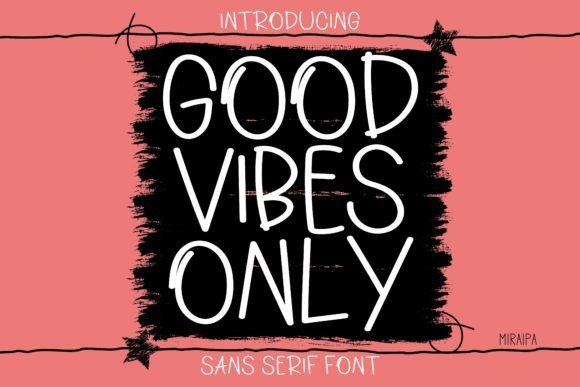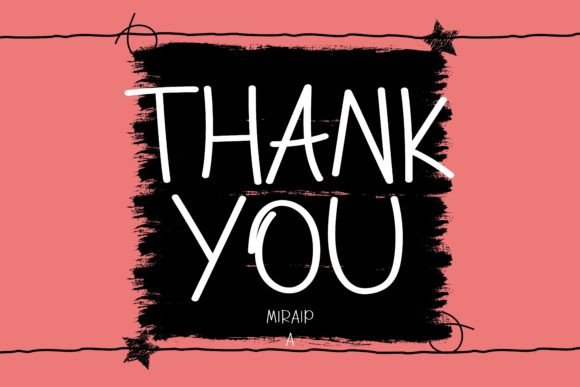
When Good Vibes Only Matter Most
Have you ever been stuck in a creative rut, struggling to find the perfect font to convey your message? We’ve all been there. But what if you could instantly shift your design into high gear with a single font? Enter the Good Vibes Only Font, a charming and friendly handwritten sans serif font that’s about to become your new go-to.
Designed to bring a smile to your viewer’s face, this font is incredibly versatile and will look great in a wide variety of contexts – from social media graphics to blog posts, and even merchandise. For designers, the Good Vibes Only Font is a valuable addition to any toolkit, providing a fresh and playful alternative to more serious fonts.
Good Vibes Only Font Key Features
- Font Family: Good Vibes Only is a sans-serif font designed to evoke a sense of positivity and happiness. It features a rounded and friendly appearance.
- Unique Characteristics: Good Vibes Only features a distinctive rounded design, with subtle curves and smooth lines that create a friendly and approachable feel.
Designer Review: Good Vibes Only Font
I recently had the chance to dive into the Good Vibes Only Font, and I must say it’s an interesting addition to the font family. ✨ The font’s playful, handwritten feel instantly grabs your attention and could be a great fit for projects that require a more casual tone. The ligatures and swashes add a touch of whimsy, making it perfect for greeting cards, social media graphics, or even a fun logo design.
One of the things that stood out to me is the font’s ability to convey a sense of optimism and friendliness. ✨ The font’s rounded edges and flowing lines create a welcoming atmosphere, making it perfect for brands that want to come across as approachable and relatable. Additionally, the font’s flexibility in terms of size and weight makes it easy to use in a variety of design contexts.
- ⚠️ Limited legibility at smaller sizes: While the font looks great at larger sizes, it can become difficult to read at smaller sizes due to the irregular letterforms and lack of clear letter spacing.
- ⚠️ Limited font weights: While the font has a few weights, it would be great to see more options to provide more design flexibility.
Overall, I think the Good Vibes Only Font is a great addition to any designer’s toolkit. While it has some limitations, its playful and optimistic feel makes it perfect for projects that require a more casual tone. With a few tweaks to address the limitations, I think this font could be a real showstopper.
Use the Good Vibes Only Font to add a touch of positivity and playfulness to your designs. Pair it with bold colors and fun graphics for maximum impact.
The Good Vibes Only Font is perfect for:
- Social media posts and captions
- Event invitations and flyers
- Wellness and self-care branding